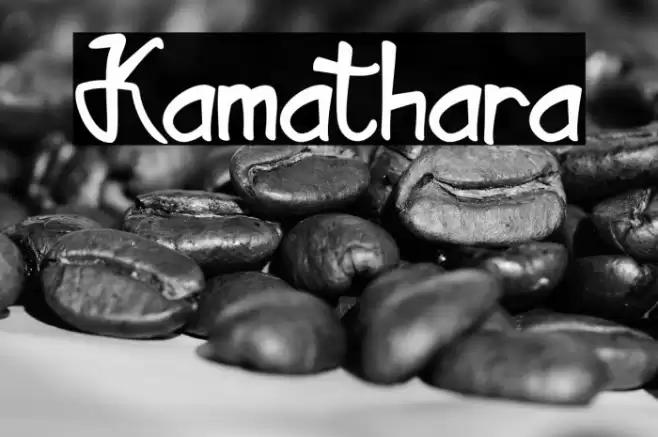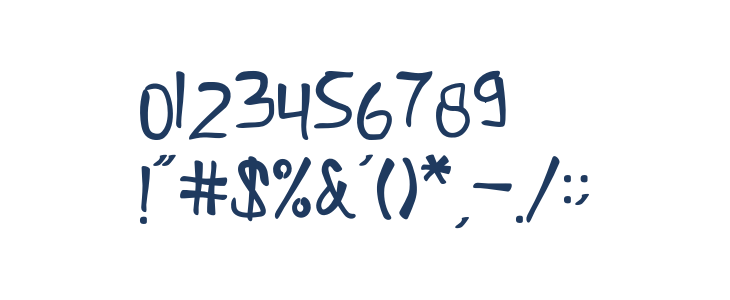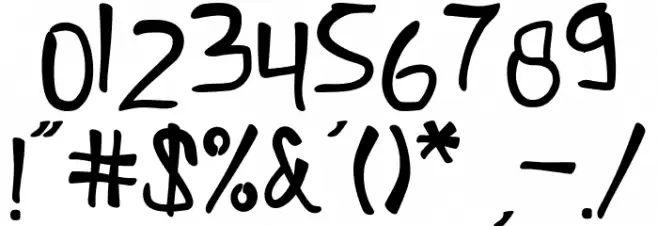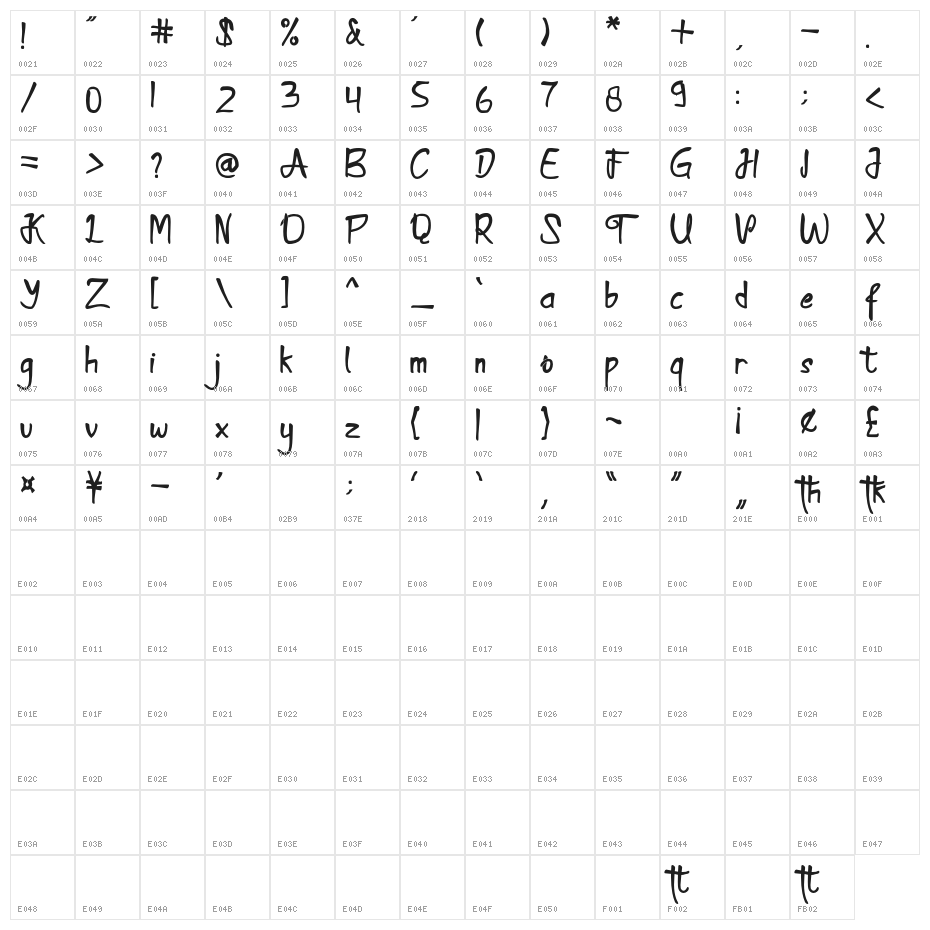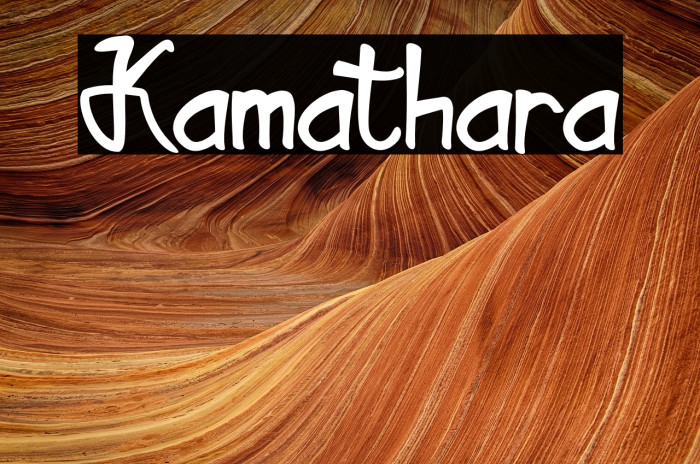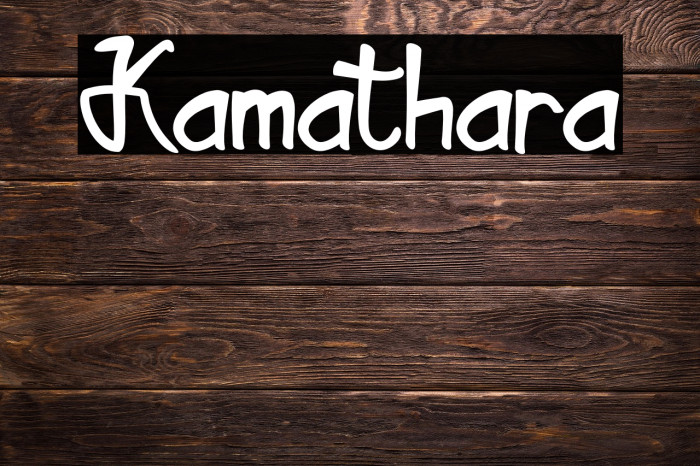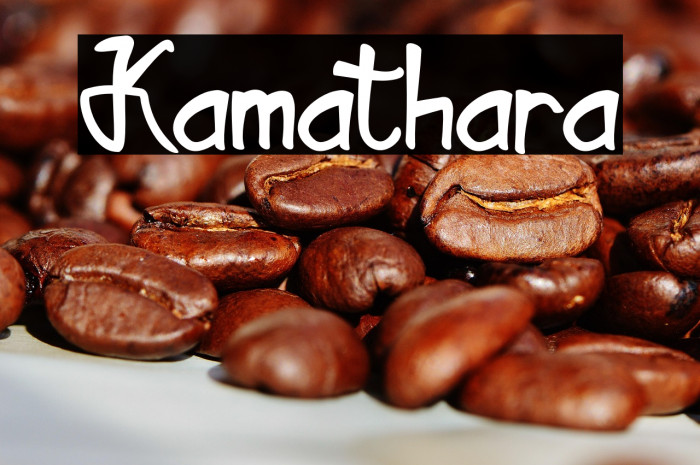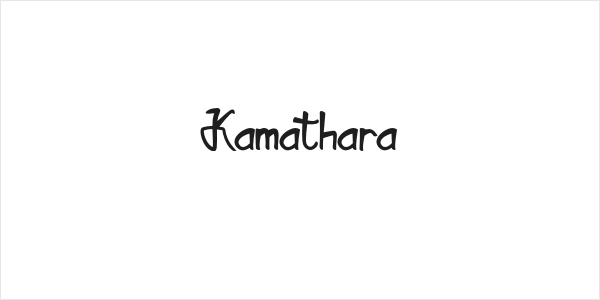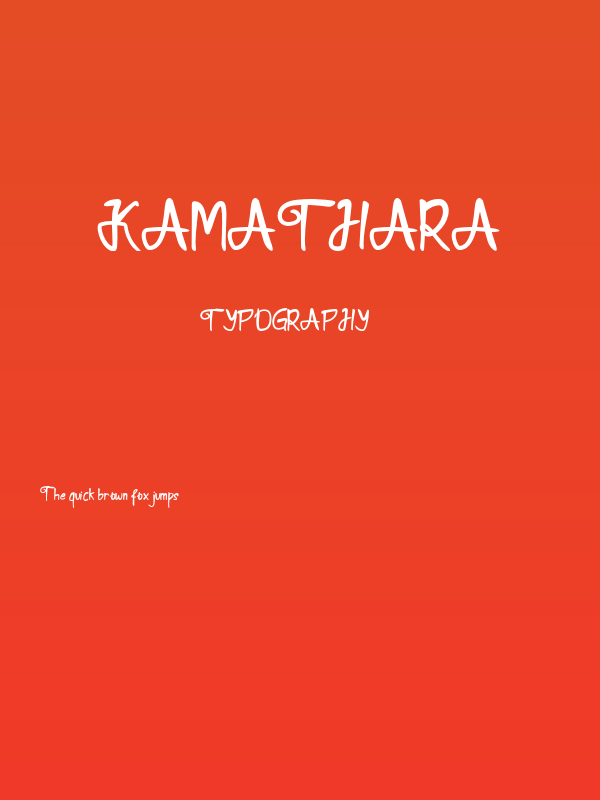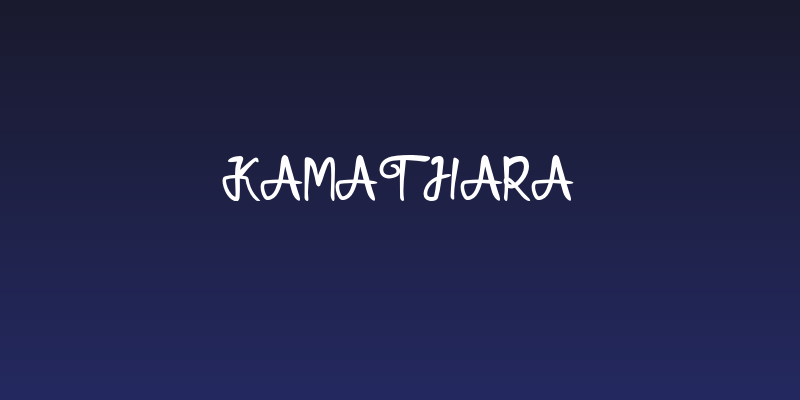
Kamathara Font
Kamathara Description
This playful and energetic font features a handwritten style with a casual, flowing appearance. The characters are bold and slightly irregular, giving them a lively and informal feel. The uppercase letters are tall and slightly narrow, while the lowercase letters maintain a consistent height, adding to the font's approachable nature. The numbers and special characters follow the same whimsical design, making the font versatile for various creative applications. The strokes are smooth with medium contrast, providing a balanced look that is both eye-catching and easy to read.
A playful, handwritten font with bold, flowing characters and medium contrast from Regular fonts.
- Proposed Projects: Ideal for greeting cards, children's books, playful branding, and social media graphics.
- Overall Style: Playful